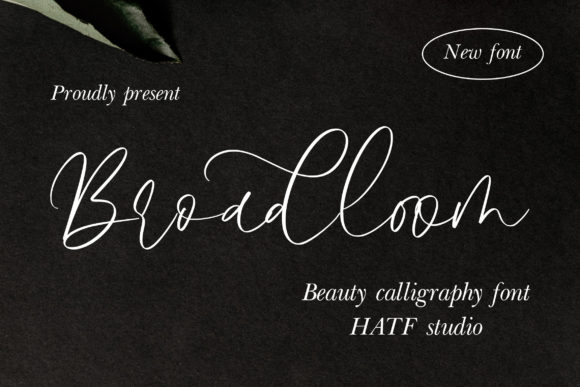
Introducing Broadloom Font, a captivating script font that will ignite your creativity and elevate your designs to new heights. Handcrafted with the utmost care by Hatf Type, Broadloom embodies the timeless elegance of handwritten charm.
Indulge in the exquisite allure of Broadloom, a font that dances across your screen with grace and fluidity. Each letter is a masterpiece, adorned with intricate details that will make your designs come alive. Whether you're crafting a captivating logo, a memorable brand identity, or inspirational quotes that resonate with your audience, Broadloom is the ultimate choice.
With Broadloom, your designs will exude a touch of sophistication and artistry that will captivate your audience. Its versatility knows no bounds, making it the perfect companion for a wide range of projects. Experience the power of Broadloom and unlock a world of creative possibilities today!